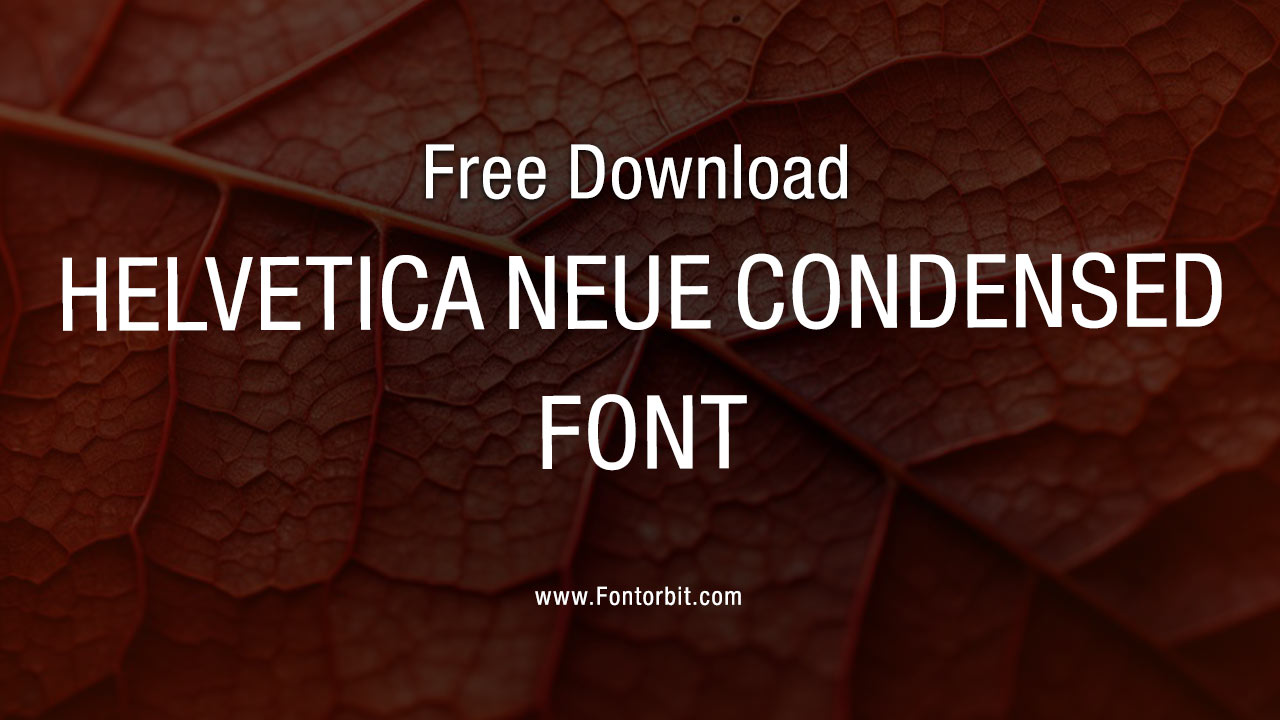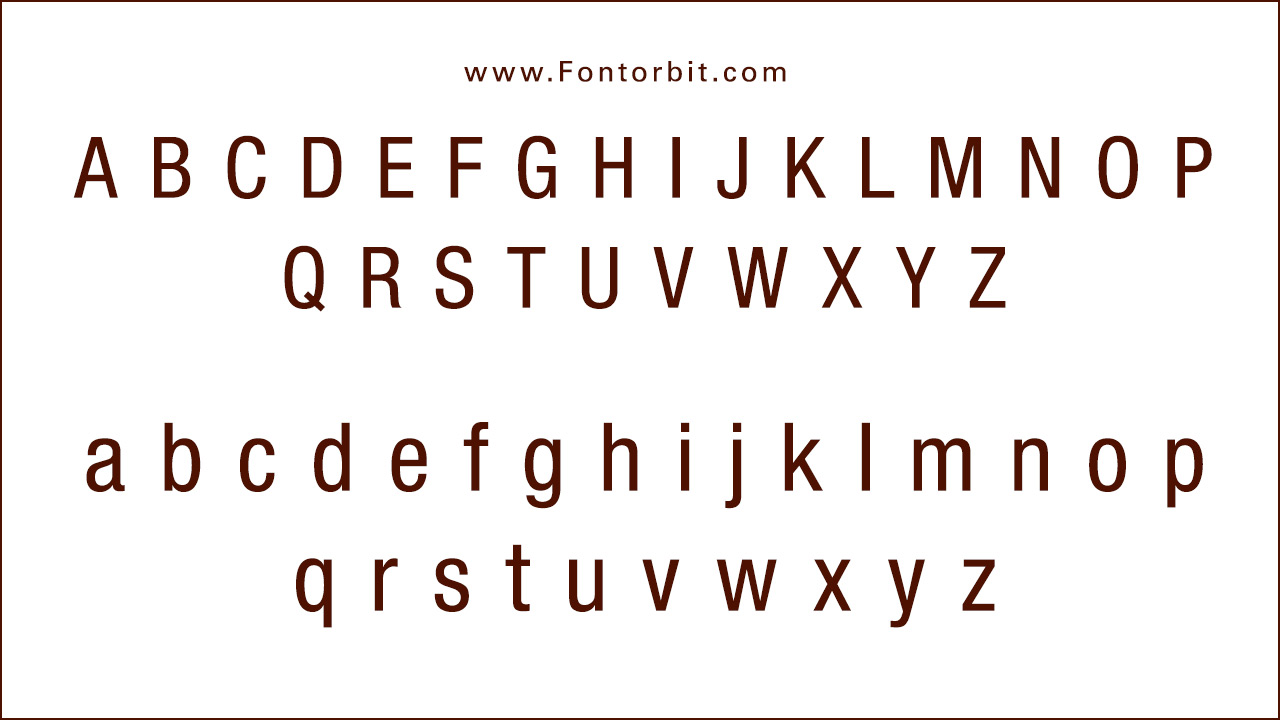
Helvetica Neue Condensed Font, designed by Erik Spiekermann and released in 1957, is a timeless sans-serif typeface known for its sleek, modern design.
As part of the Helvetica family, it offers a refined, narrow appearance that makes it a favorite among designers seeking a professional and minimalist aesthetic. Available for both personal and commercial use, this typeface remains a go-to choice for a variety of design projects.
Helvetica Neue Condensed Font is ideal for a wide range of projects, thanks to its streamlined and modern look. It excels in professional settings and can be used for various applications, including:
- Text and logo projects
- For Brochures
- Gaming logos
With its range of styles and weights, Helvetica Neue Condensed Font combines simplicity and sophistication. Its clean, modern lines make it a versatile choice for a variety of design projects, from corporate branding to editorial layouts. Pair Helvetica Neue Condensed with more expressive typefaces to create visually striking and balanced designs.
1.Is Helvetica Neue Condensed Font Suitable For All Types Of Design Projects?
Helvetica Neue Condensed Font is highly adaptable and can be used in a wide variety of design projects. It excels in professional, corporate, and editorial contexts but may be less suited to highly decorative or informal designs.
2.What Makes Helvetica Neue Condensed Font Different From Other Sans-Serif Fonts?
Helvetica Neue Condensed Font stands out with its narrow width and clean design, offering a refined look that is both timeless and modern. Its range of styles and weights provides a comprehensive solution for diverse typographic needs.
3.What Are The Popular Uses Of Helvetica Neue Condensed Font?
Due to its clarity and modern aesthetic, the Helvetica Neue Condensed Font is popular in corporate branding, web design, signage, editorial layouts, and advertising.
4.What Are The Design Principles Behind Helvetica Neue Condensed Font?
The design principles of Helvetica Neue Condensed Font focus on simplicity, readability, and versatility. Its clean, geometric lines and narrow structure provide a professional and timeless appearance.
5.What Color Palette Is Typically Used With Helvetica Neue Condensed Font?
Helvetica Neue Condensed Font pairs well with both neutral and bold color palettes. Classic black and white, as well as vibrant colors, can complement the typeface’s clean lines and modern look.